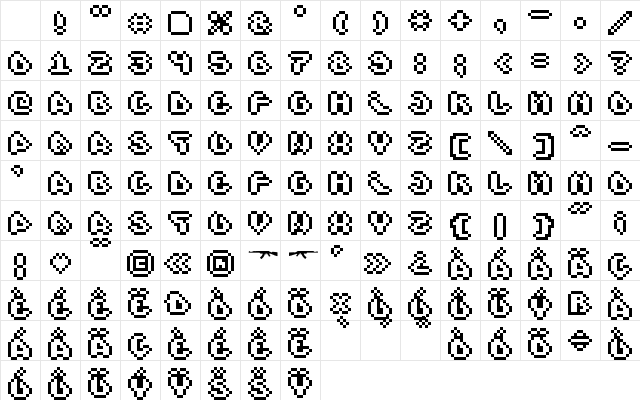
Complete Scienide Outline Regular glyph index. Displaying only characters natively supported by Scienide Outline Regular font.
Scienide Outline is built around its visual character rather than neutral utility - its distinctive forms are designed to make an impression at display sizes.
Font Pairing: Pair with a clean neutral sans-serif for body copy to let Scienide Outline's character lead without overwhelming the composition.
Pro Tip: Use Scienide Outline exclusively at display sizes - it was designed to be seen, not read at length. Let a neutral companion handle body copy.